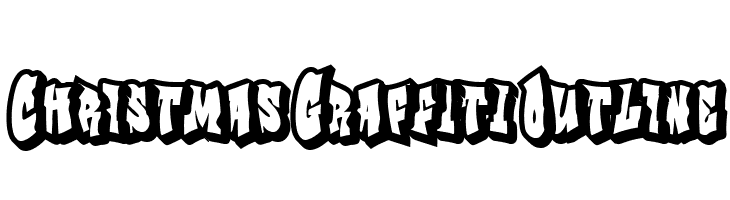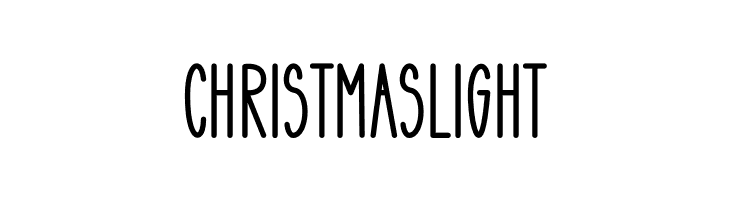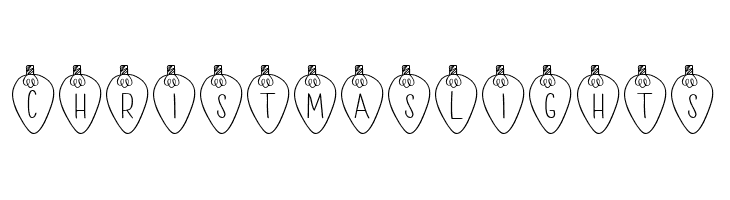
An elegant script font with intricate swashes and decorative flourishes.
An elegant script font with intricate loops and flowing design, perfect for luxury branding.
( Nils Merkel )
A modern, condensed sans-serif font with clean lines and uniform stroke widths.
A playful, handwritten font with smooth, flowing curves and interconnected letters.
( Nils Merkel )
A bold, modern sans-serif font with clean lines and a structured appearance.
( Fonts by Khurasan )
A bold, dynamic script font with smooth, connected letterforms.
( Fonts by Rian Dryana )
A bold, playful font with a bubbly, rounded appearance.
( Fonts by Rian Dryana )
A playful, bold outline font with a bubbly, inflated appearance.
A futuristic, italic font with sharp angles and a dynamic, modern design.
A bold, futuristic font with angular, geometric shapes.
A bold, 3D geometric font with a futuristic style.
A bold, italicized 3D font with a futuristic and dynamic design.
A bold, futuristic, and geometric font with a condensed style.
A bold, italicized, and condensed font with a futuristic and dynamic style.
A bold, condensed, semi-italic font with a futuristic and dynamic style.
A bold, angular, and futuristic font with expanded width and tight spacing.
A bold, expanded, and italicized futuristic font with sharp angles.
A bold, expanded, and semi-italicized font with a futuristic, angular design.
A bold, futuristic font with a gradient effect and sharp, angular design.
A bold, italicized font with gradient stripes and a futuristic style.
A bold, futuristic font with a halftone effect and geometric design.
A bold, italicized font with a futuristic halftone effect.
A bold, italicized font with a futuristic and dynamic style.
A bold, futuristic font with sharp angles and a stencil-like design.
A bold, futuristic italic font with sharp angles and a dynamic style.
A bold, futuristic font with sharp angles and a semi-italic slant.
A bold, futuristic font with angular, geometric shapes and a slight italic slant.
A bold, futuristic font with a semi-italic slant and angular design.
A bold, italic, and futuristic font with angular, geometric characters.
A playful, bold handwritten font with a casual and friendly vibe.